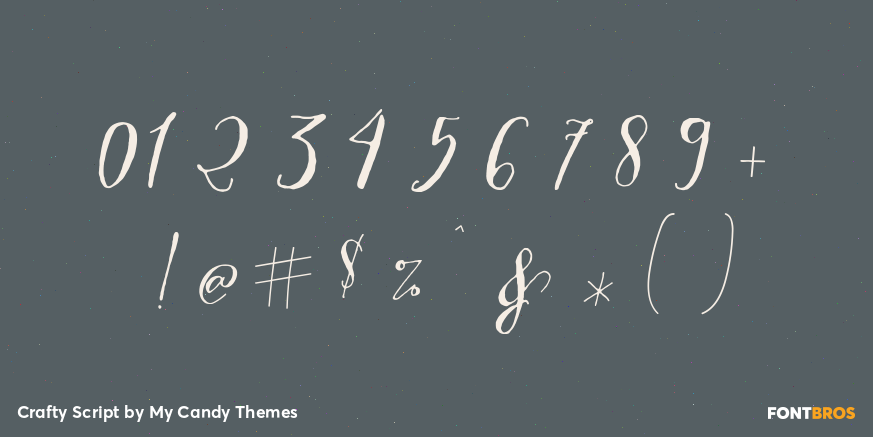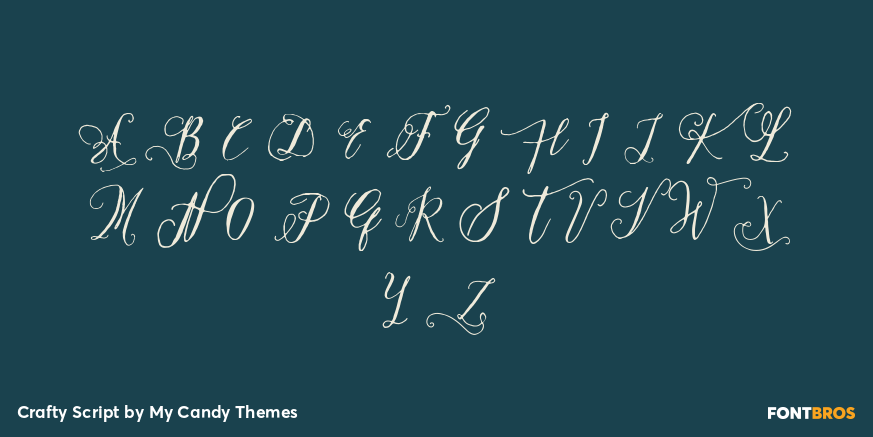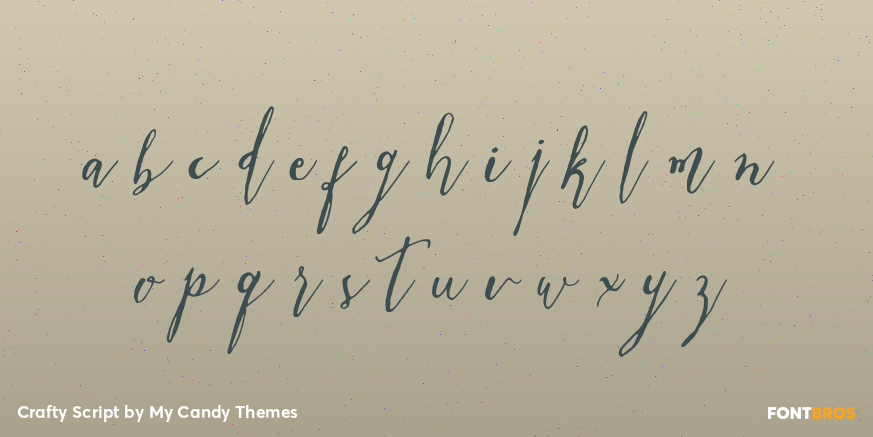
Crafty Script
Font Family by My Candy Themes
Crafty script is a type family from our calligraphy series. Natural handlettered style with beautiful uppercase and unique alternative letters.